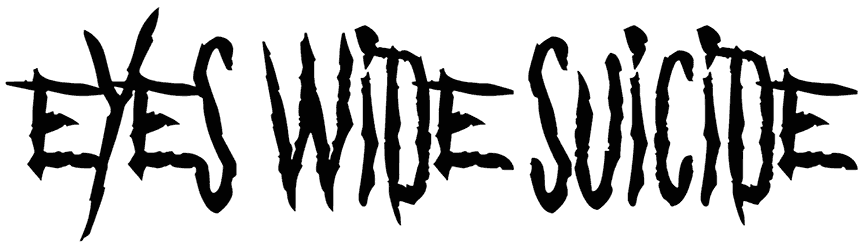
Eyes Wide Suicide Font
Eyes Wide Suicide has creative details that are flavored with a sense of horror and can look great in your spooky projects. The architecture of this font is very similar to the functioning of a mind with an anti-social approach, which can look impressive and catchy in any project.
This emo font leaks small letters and looks great for structuring headlines, advertisements, and Halloween themes. Using this horror font, you can create a bold look that will attract any viewer.